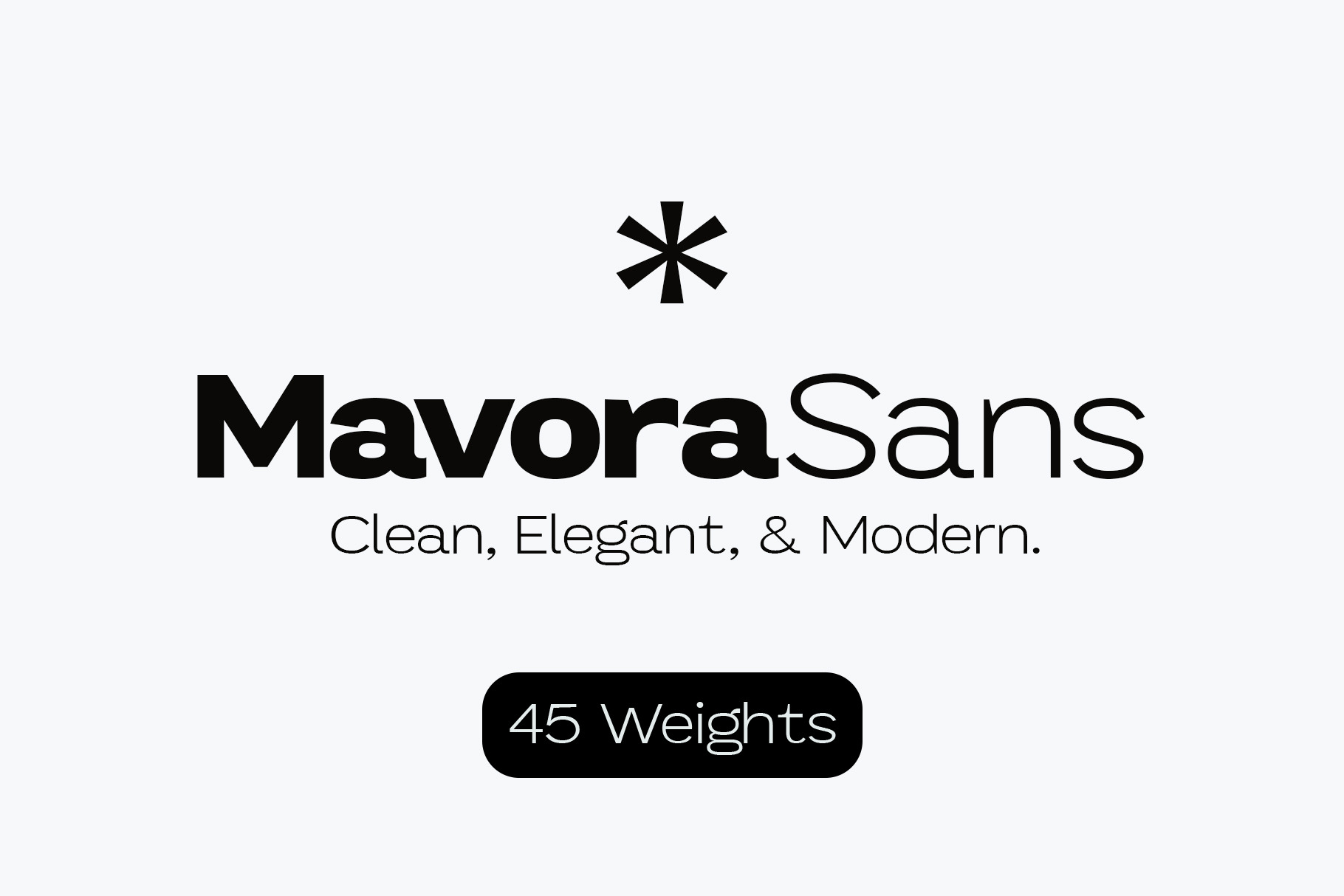
Mavora Sans Typeface - 45 Weights
Introducing Mavora Sans, the pinnacle of typographic excellence. A clean, modern, and minimal sans-serif designed to stand the test of time. Whether you're crafting a high-end brand identity, designing an elegant website, or shaping the future of editorial design, Mavora Sans is the only typeface you’ll ever need.
Mavora Sans comes in 45 meticulously crafted weights, offering unparalleled flexibility across five unique classes:
- Regular – Perfect for body text, bringing effortless readability.
- Semi Expanded – A subtle yet striking presence for branding and headlines.
- Expanded – A harmonious balance of space and structure.
- Extra Expanded – Bold and powerful without being overwhelming.
- Ultra Expanded – A statement of modern elegance with a wide, commanding stance.
And with Variable Font technology, you have infinite precision at your fingertips—every weight, every width, fully customizable.
A Typeface for the Ages
Some fonts fade with time. Mavora Sans is forever. With a design that is timelessly modern, this is a typeface that will look just as stunning 100 years from now as it does today. Whether you’re creating for print, digital, UI/UX, branding, advertising, or signage, Mavora Sans adapts seamlessly to any project.
Why Mavora Sans?
- Ultimate versatility – From delicate thin to bold heavyweight, every weight is crafted with precision.
- Minimal yet impactful – A clean and modern aesthetic that commands attention.
- Flawless readability – Designed for clarity at any size, in any medium.
- Variable font power – Fine-tune the weight and width to perfection.
- Built for longevity – A typeface you can use forever.
This isn’t just another font. This is the future of typography. Mavora Sans is the typeface that will define generations of design—and it’s ready to be yours today.
Elevate your design. Experience Mavora Sans.